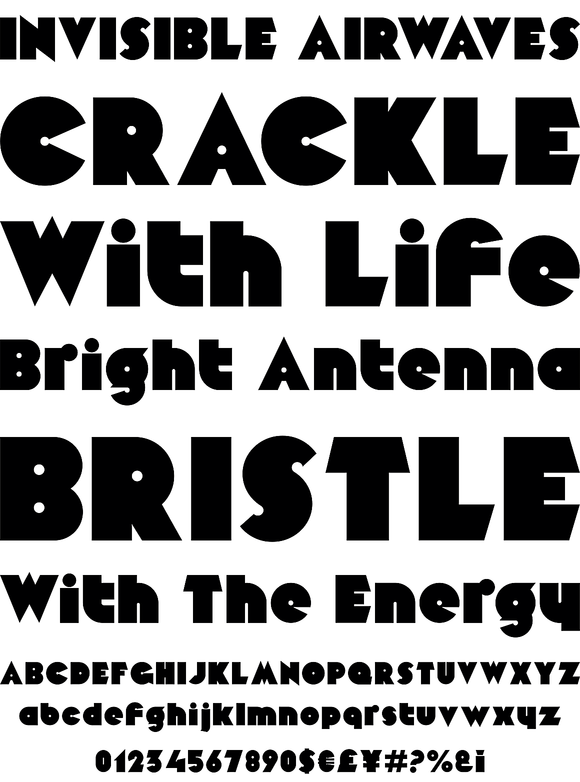
A modern heavy weight typeface ideal for use on print, web, motion, t-shirts and apparel. Details include 4 styles with 3 alternatives, extended European character set, manually edited kerning and Euro symbol.